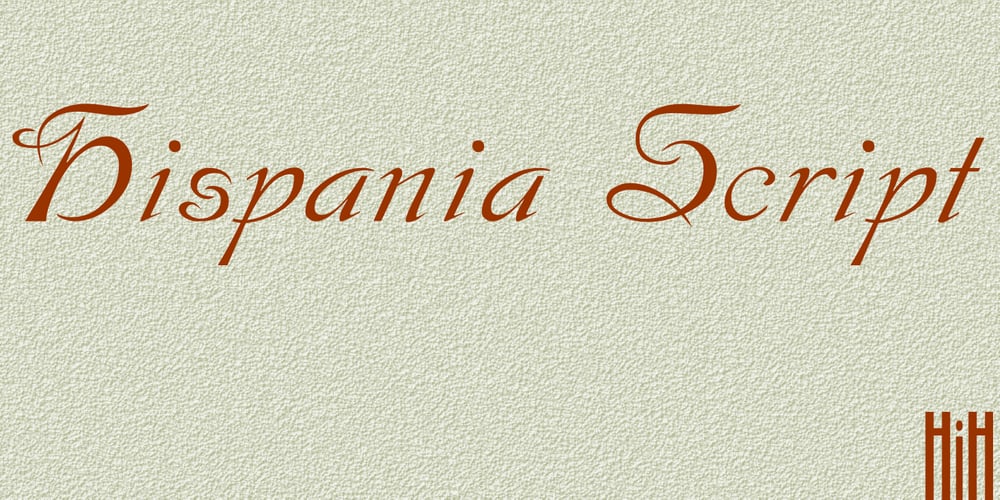
Hispania Script
Hispania Script font
Hispania Script Font Family was designed by published by HiH. Hispania Script contains 1 styles and family package options. Hispania Script is a distinctive and distinctly nineteenth century script. It was released by Schelter & Giesecke of Leipzig, Germany around 1890. Particularly noteworthy are the sharply-pointed legs of the upper case ‘K’ & ‘R’ that seem to be characteristic of the period. Similar strokes, often with a slight curve, may be seen in typefaces like Alt-Romanish and Tinteretto by Schelter & Giesecke, Artistic and Lateinsch by Bauer and Berthold and the poster lettering of Edward Penfield. The angle of this script (approximately 24 degrees) and the sharp delicate points must have made the manufacture of this face in metal type a challenge. The resulting type was probably quite fragile and subject to accidental damage. Additionally, the sharp points would be subject to wear. With digital type, these concerns are eliminated. As far as I know, no one has ever dropped a digital letter on the floor. Nonetheless, creating a digital outline for a typeface like Hispania Script, with many crossing strokes, can be quite time-consuming. Even with an accurate scan of a good quality original, it is usually necessary to construct each crossing stroke separately and then remove the overlap in order to obtain a sharp and convincing intersection. Steep internal angles are often defined with two points, rather than one, to minimize ink or toner fill that can muddy the rendering in smaller sizes. Like all formal scripts, Hispania Script is always useful for announcements and invitations. However, the distinctiveness of of this design strongly suggests that there are other applications that may benefit from its use. Step outside the box and try it in some unexpected places. It is the unexpected that often draws a person’s eye.